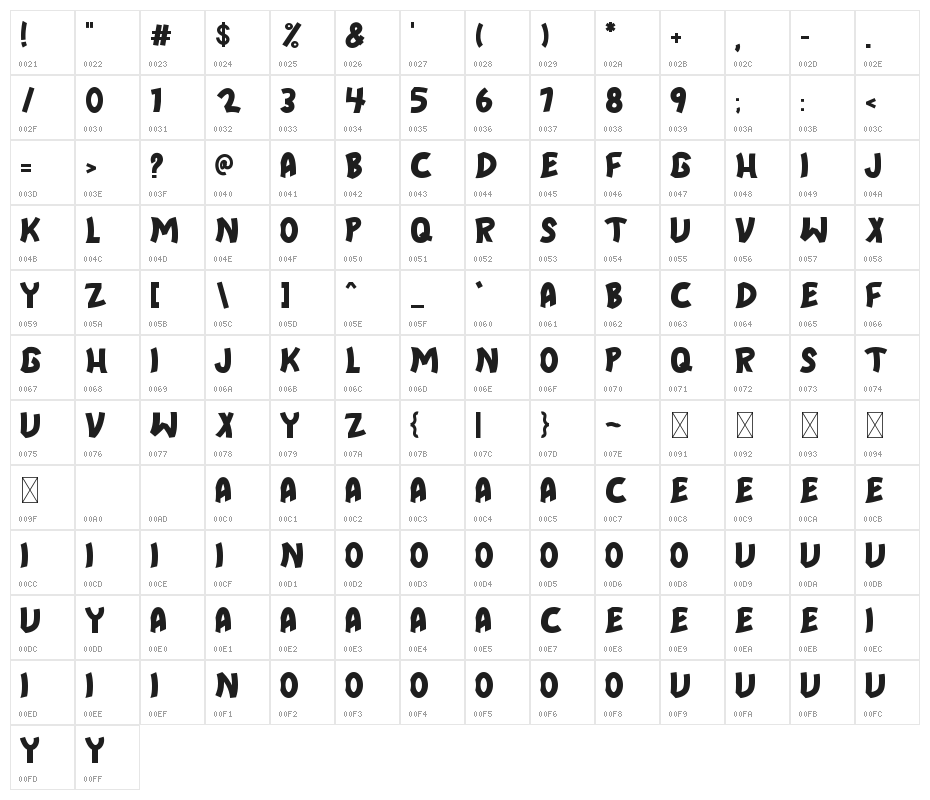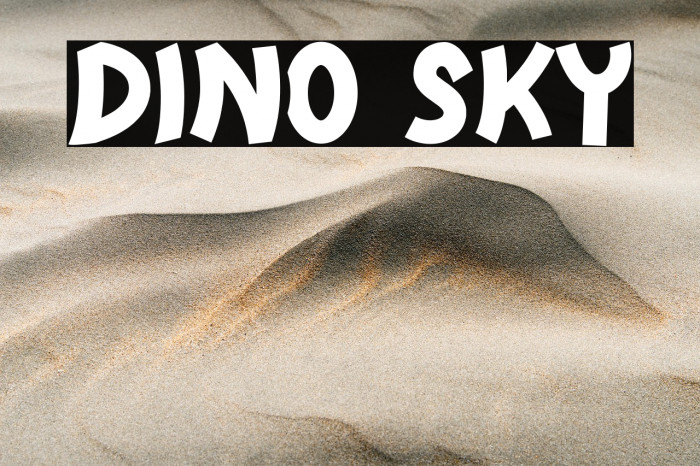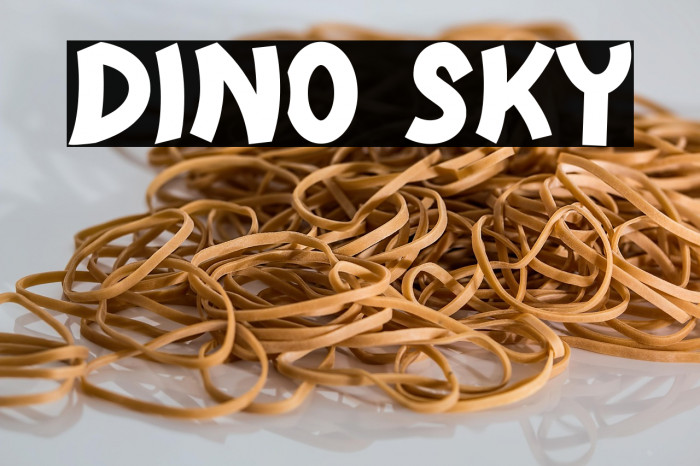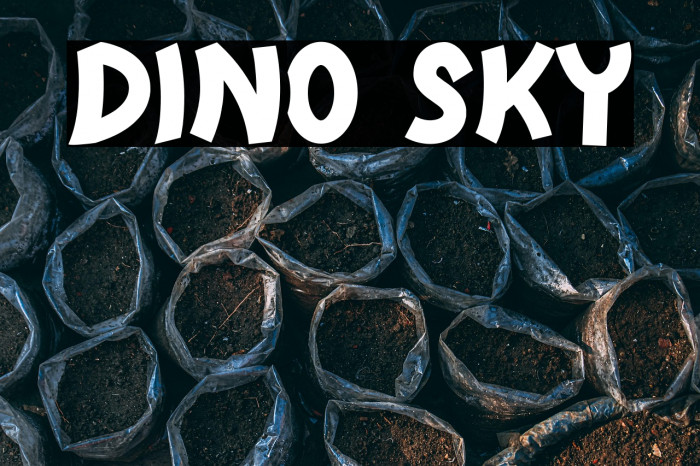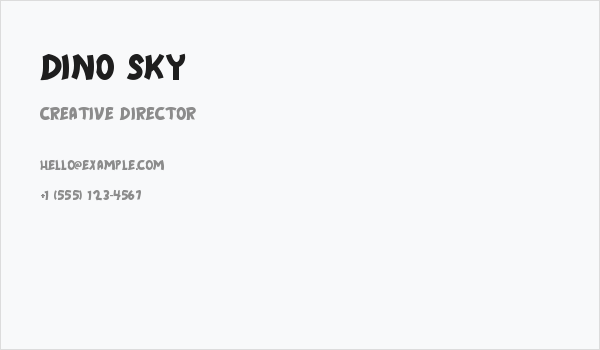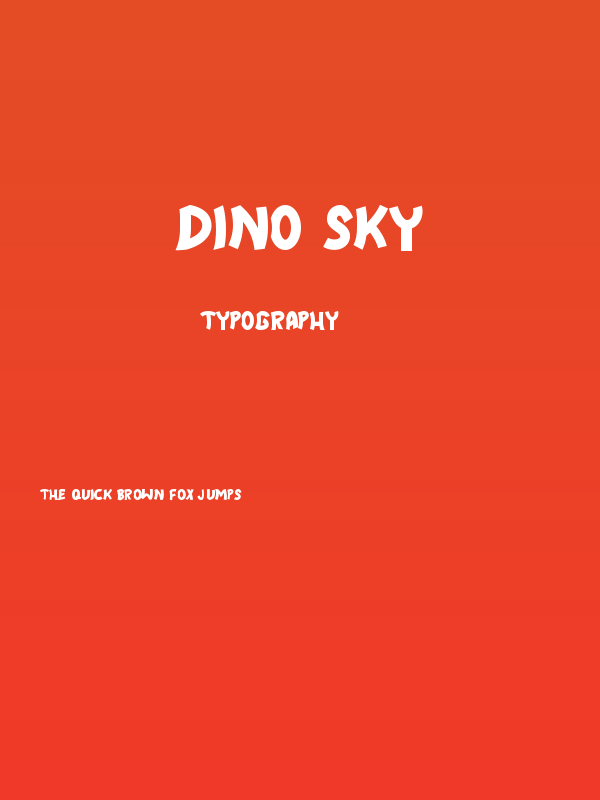
DINO SKY Font
DINO SKY Description
This font features bold, playful characters with a dynamic and energetic style. The letters have a slightly irregular, hand-drawn appearance, giving them a whimsical and fun feel. The strokes are thick and consistent, with a slight tilt that adds to the lively character of the typeface. The overall design is reminiscent of cartoon or comic book lettering, making it ideal for projects that require a sense of humor or creativity. The numbers and special characters maintain the same playful aesthetic, ensuring a cohesive look across all text elements.
| Overall Style | Playful, Cartoonish |
| Proposed Projects | Ideal for children's books, comic strips, playful branding, and creative posters. |